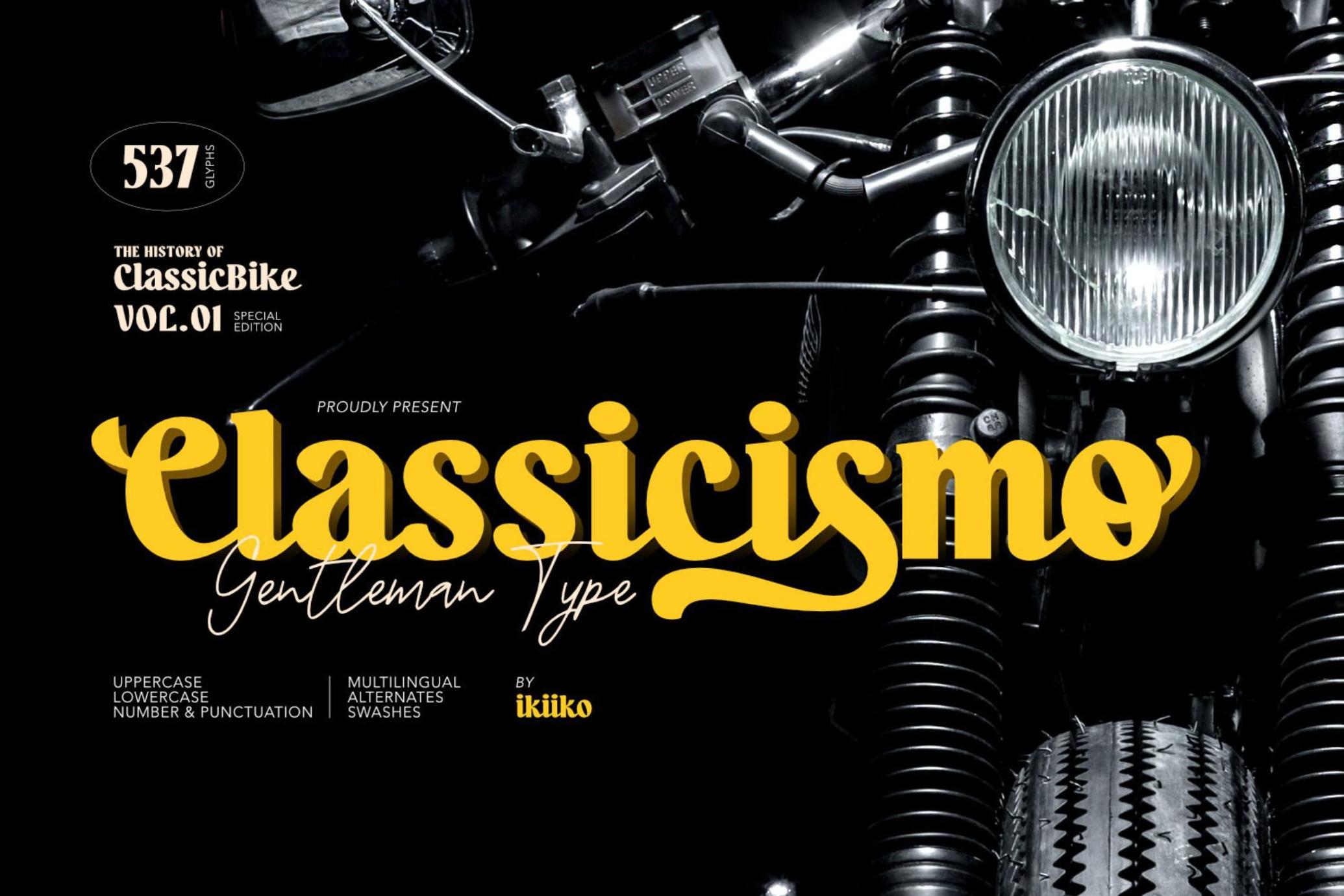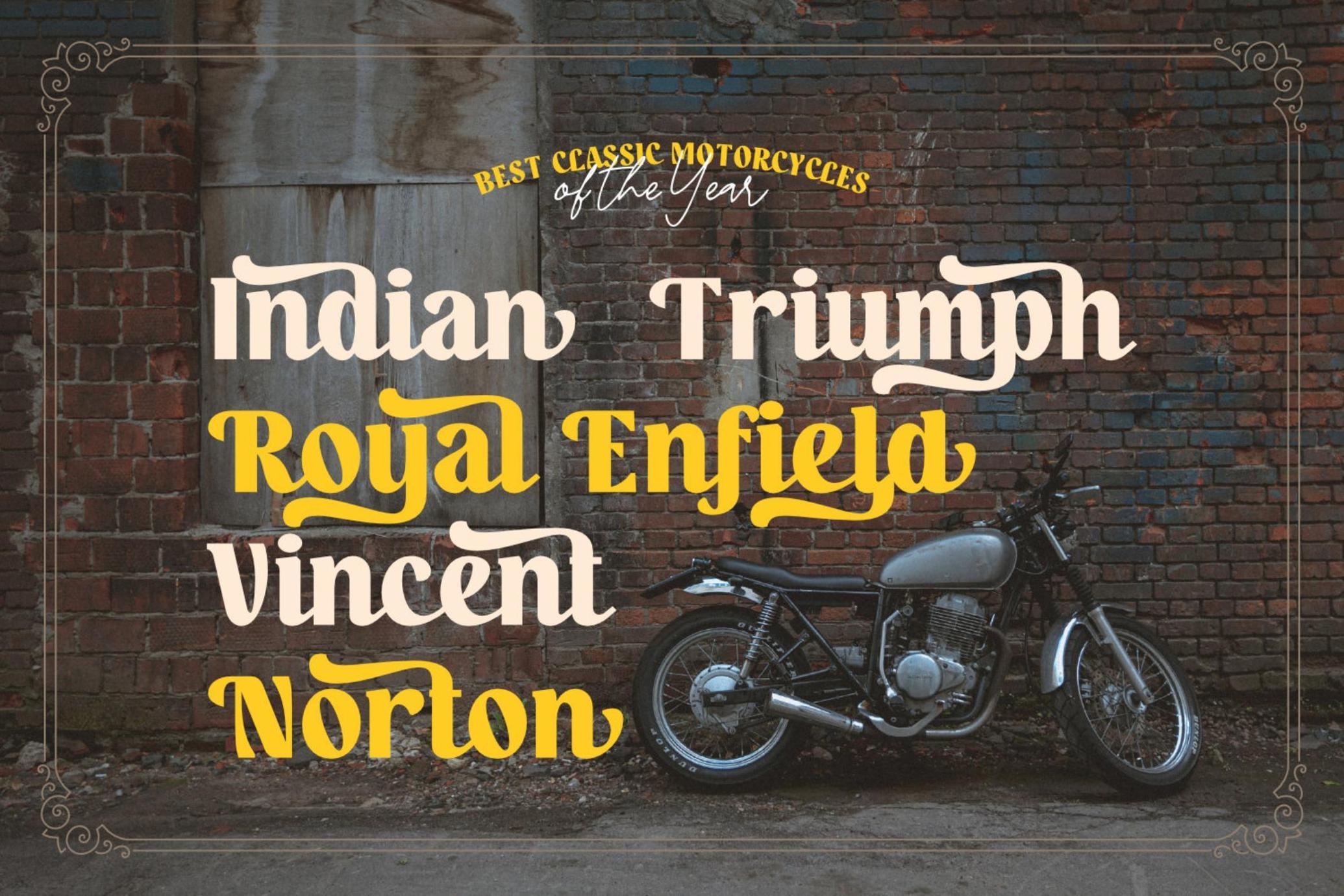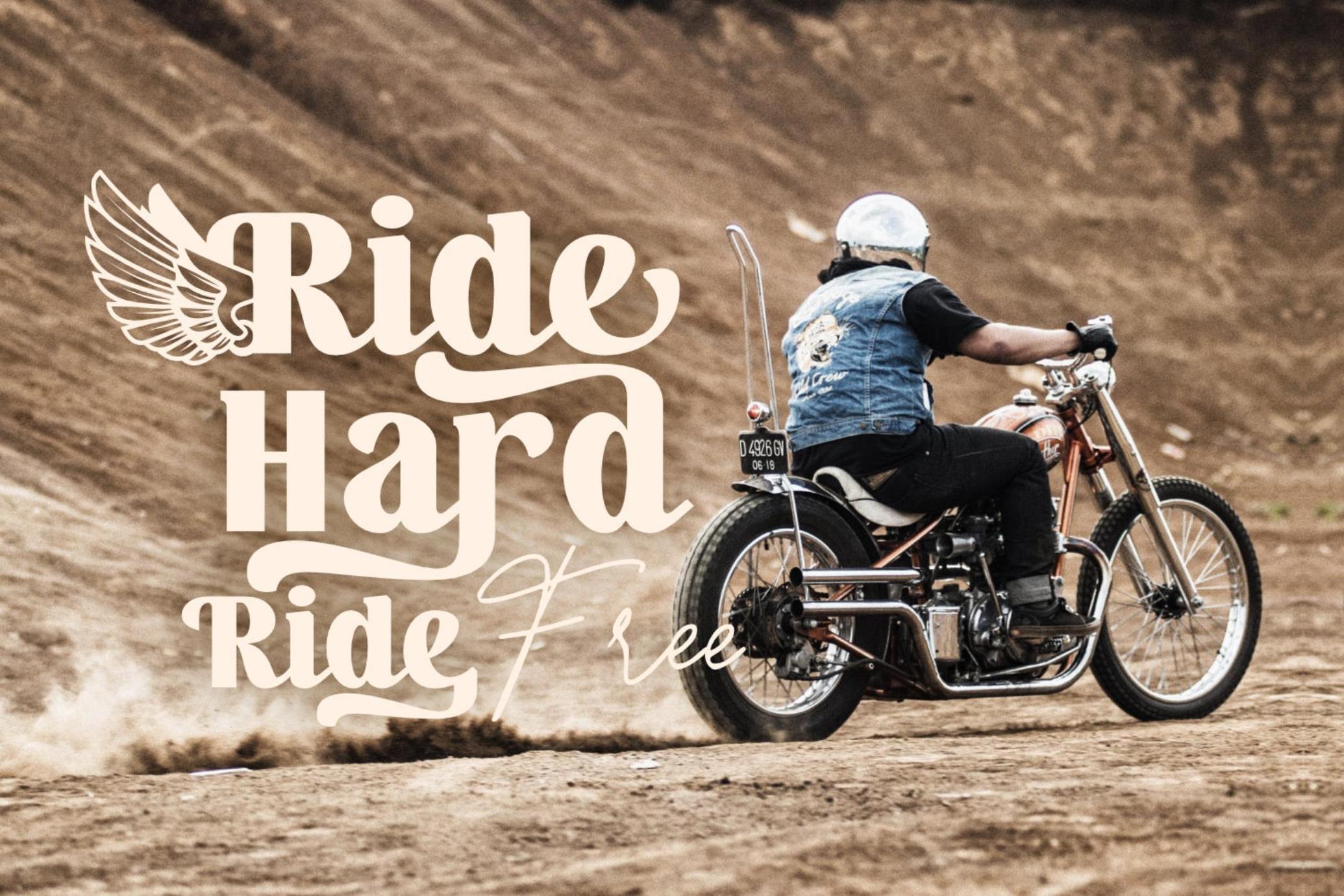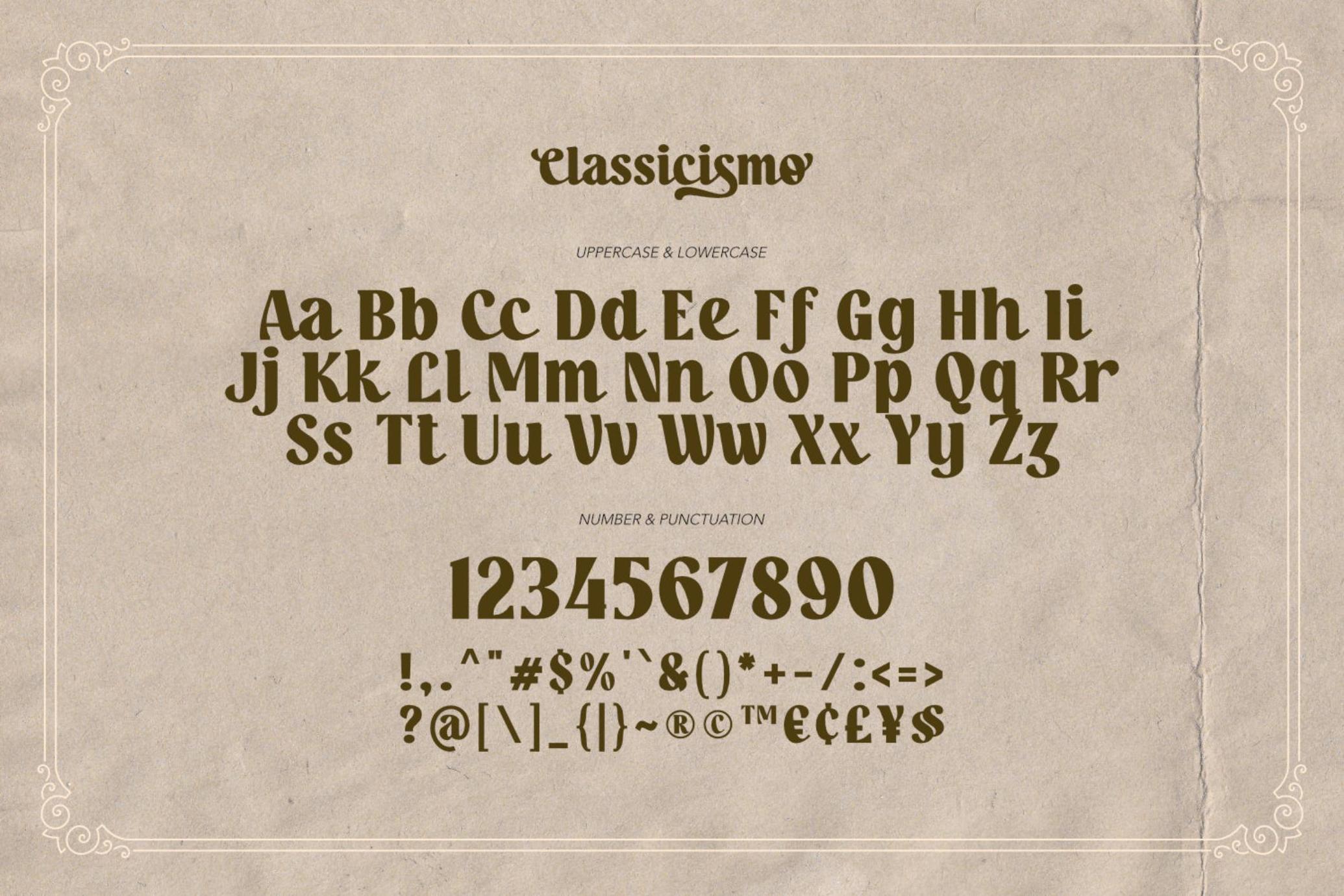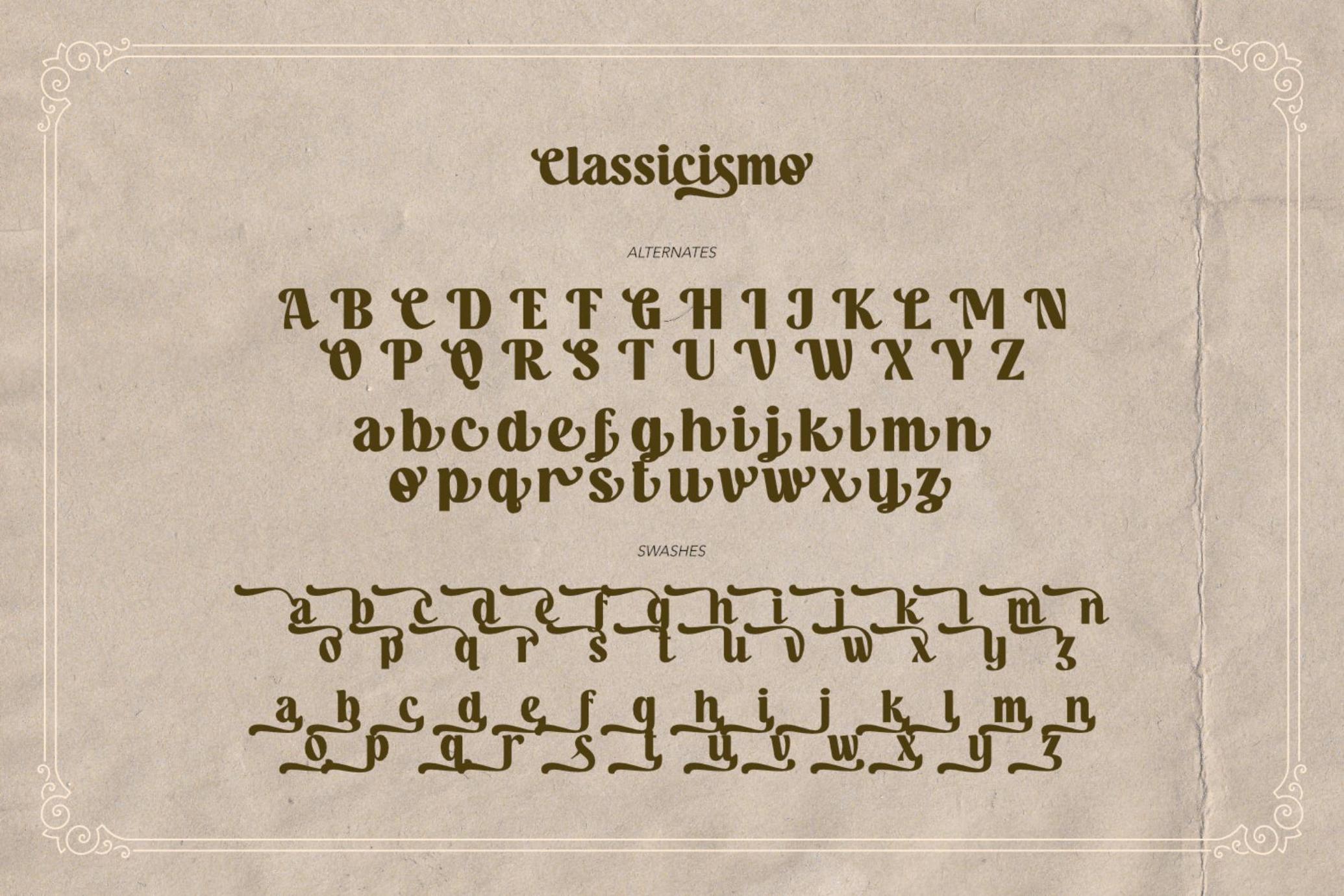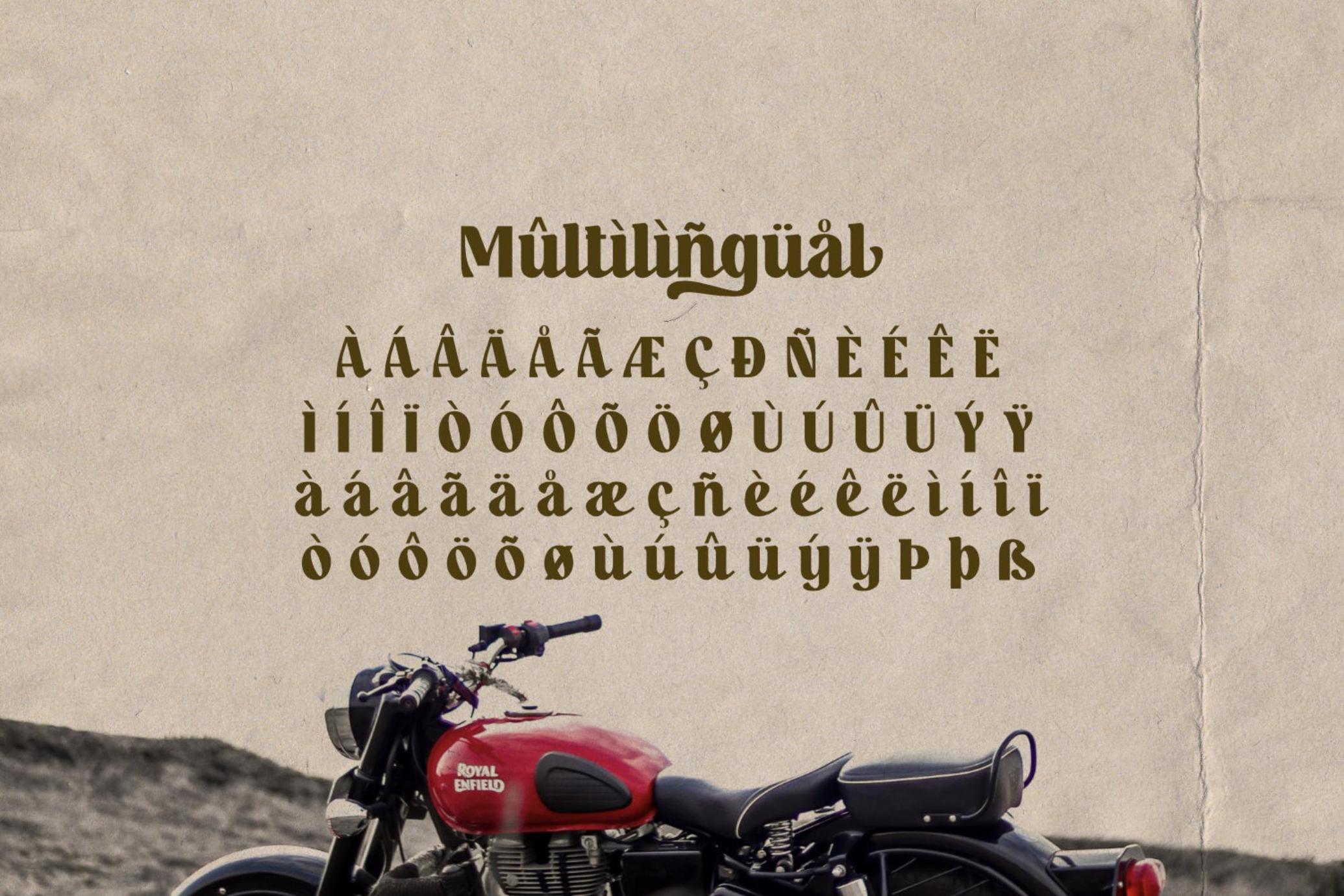
Classicismo - Gentleman Font
Classicismo
Classicismo is inspired by typography of classic motorcycle brand. The letters are bold serif fonts with a classic swashes type. This font has a characteristic serif font that is firm and sturdy but still has flexibility. This typeface is perfect for an vintage vehicle logo, motorcycle enthusiast, manly product, magazine cover, poster & flyer design for automotive event, and also good for vintage product, or simply as a stylish text overlay to any background image.
- Number & Punctuation
- Alternates & Swashes